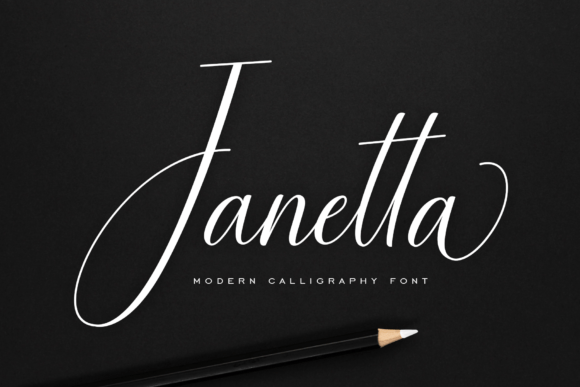
Journey into the Enchanting Realm of Janetta: A Script Font That Captivates and Inspires
In the realm of digital artistry, where creativity reigns supreme, there exists a font that weaves a spell of elegance and enchantment - Janetta. This modern calligraphy script, crafted with meticulous precision, beckons you to let your imagination soar and transform your design visions into breathtaking realities. A stroke of Janetta adds an aura of refined sophistication to your projects, making them stand out as masterpieces of visual allure.
As you embark on your artistic odyssey with Janetta, you'll find its soft lines and graceful curves flowing seamlessly, creating an irresistible charm that draws eyes and hearts alike. It's perfect for fashion design, inviting you to embrace your inner couturier and drape your creations in an ethereal elegance that speaks volumes without uttering a single word.
Imagine your fashion designs adorned with Janetta's delicate touch, each letter a brushstroke of artistry that elevates your garments to works of art. Let Janetta's enchanting curves dance across your logos, branding, and social media posts, infusing them with a timeless allure that captivates audiences and leaves a lasting impression.
With Janetta as your font of choice, you'll find endless opportunities to unleash your creativity and make your mark on the world of fashion design. Its natural and flowing style blends seamlessly with your designs, creating a harmonious unity that elevates your work to new heights of sophistication.
Let Janetta be your muse, your guiding light in the realm of fashion design. Its enchanting beauty will breathe life into your creations, transforming them into captivating expressions of art that resonate with your unique vision. Janetta is more than just a font; it's a gateway to a world where imagination reigns free and dreams take tangible form.